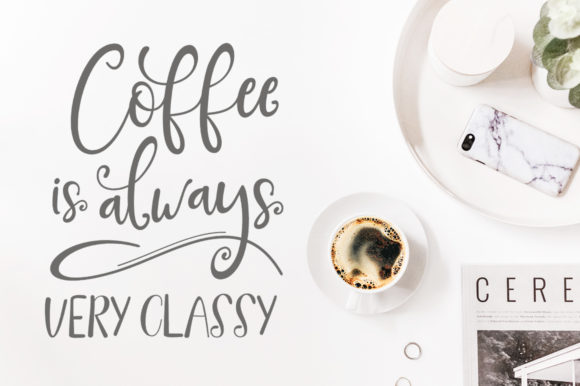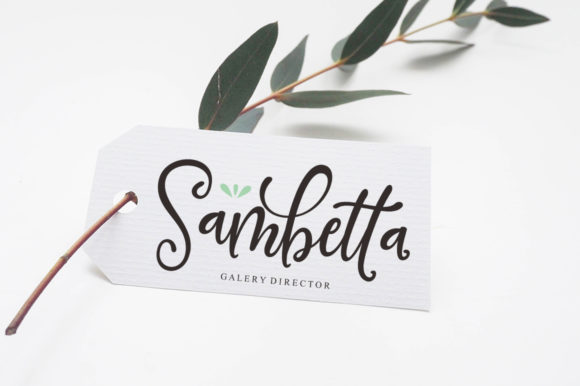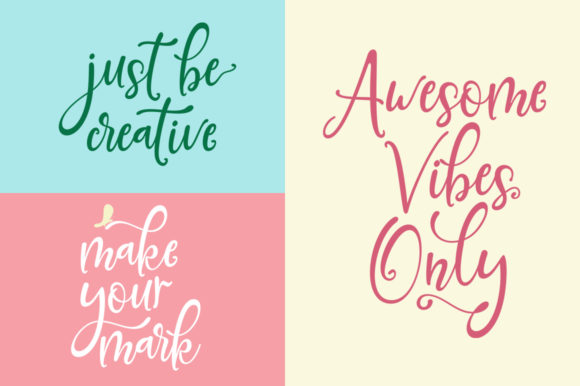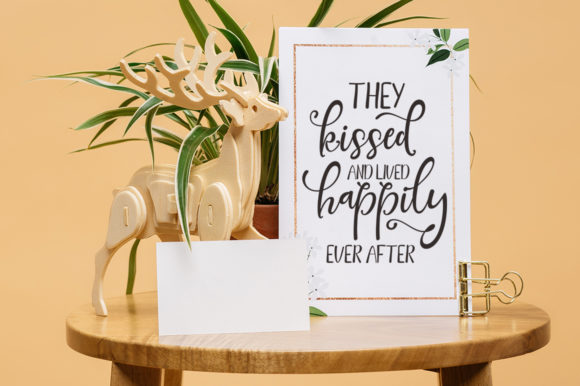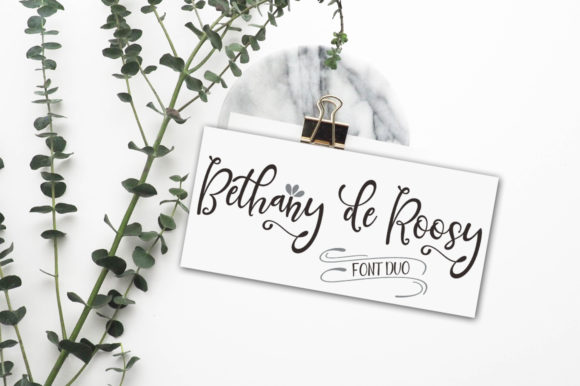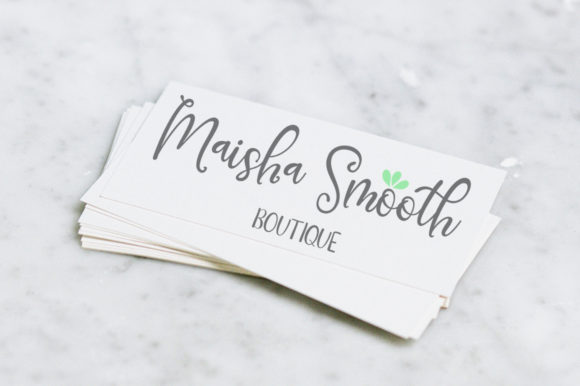
The Gerald Battom Font: A Script Sans Duo for Creative Expression
I’ll never forget the time I was working on a wedding invitation project, and my client asked for a font that was both elegant and playful. I scoured the internet, tried out dozens of fonts, but nothing seemed quite right. That was until I stumbled upon the Gerald Battom font duo. It was like a breath of fresh air – a perfect blend of delicate charm and creative flair. In this article, I’ll share my experience with Gerald Battom, and explore its features, uses, and alternatives.
So, what makes Gerald Battom special? Here are a few things I love:
- ✨ Unique Script Sans Style: Gerald Battom boasts a distinctive script sans style that’s both elegant and approachable.
- ✅ Versatility: This font duo is perfect for a wide range of creative projects, from wedding invitations and cards to branding and more.
- 💫 High-Quality Design: The font is meticulously crafted, with attention to detail and a clear focus on aesthetics.
Of course, no font is perfect, and Gerald Battom has a few minor quirks:
- 🤔 Limited Use in Small Sizes: As with many script fonts, Gerald Battom may not be the best choice for very small text sizes, as some details may get lost.
- ⚠️ Occasional Kerning Issues: Some users have reported minor kerning issues, particularly when using the font in certain software or platforms.
- Experiment with OpenType features, such as stylistic alternates and glyphs, to add creative flair to your designs.
- Explore the font’s extensive glyph library to add unique touches to your designs.
The Designer Inspiration Behind Gerald Battom
While the true story behind Gerald Battom’s creation remains a mystery, it’s easy to imagine that the designer was inspired by a mix of classic elegance and modern playfulness. Perhaps they aimed to create a font that would bring a touch of sophistication to everyday designs, while still feeling approachable and fun. Whatever the motivation, Gerald Battom has undoubtedly become a valuable asset for designers and crafters alike.
| Author | rotterlabstudio |
| What type of projects is Gerald Battom best suited for? | Gerald Battom is perfect for wedding invitations, cards, branding, and any creative project that requires a delicate, elegant touch. |